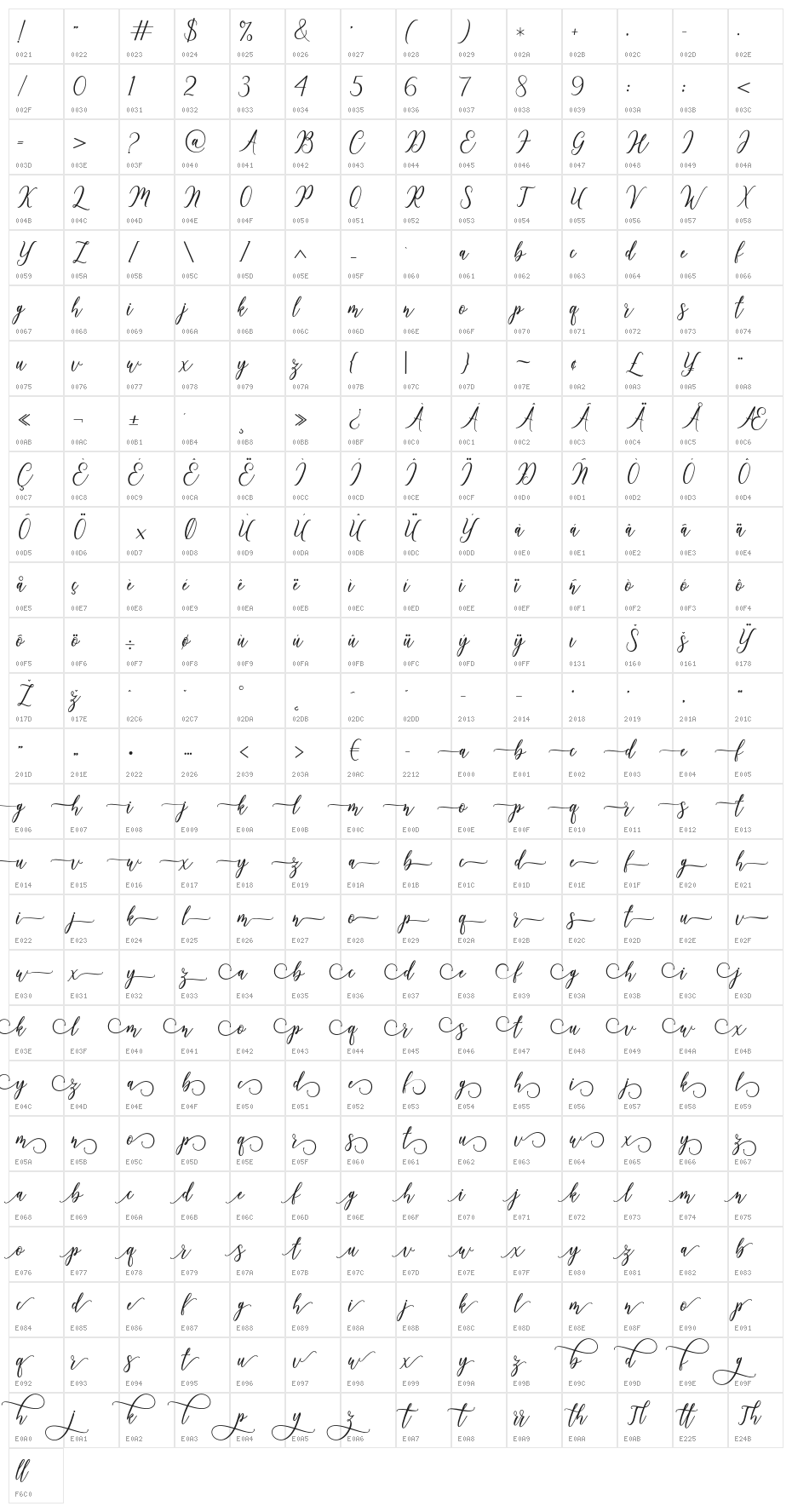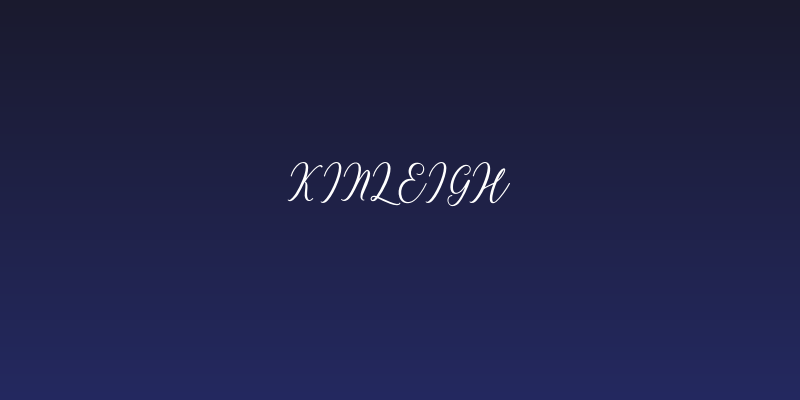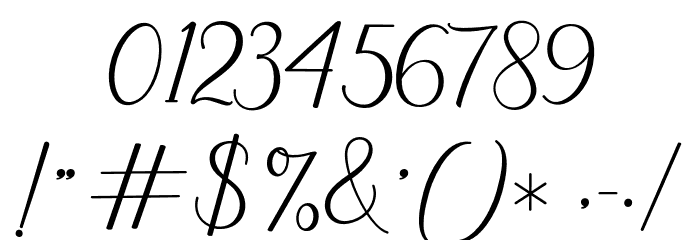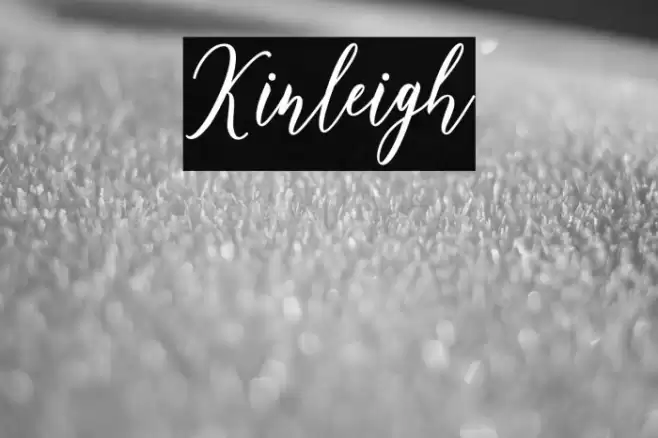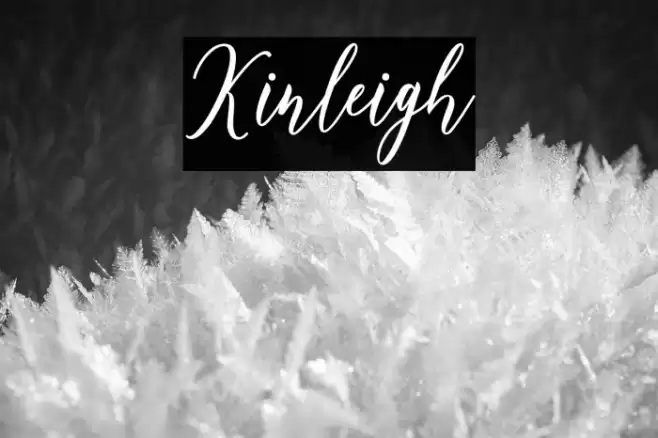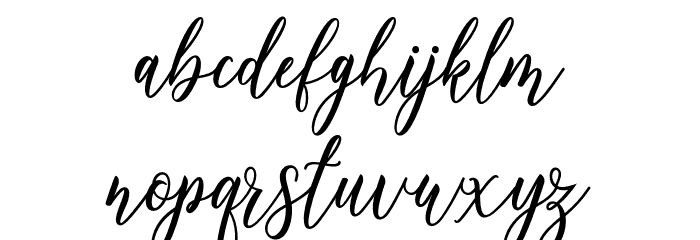
Kinleigh Font
Kinleigh Description
This elegant script font features a flowing, cursive style with smooth, connected strokes. The uppercase letters are tall and graceful, with a slight slant that adds a sense of movement and fluidity. The lowercase letters are equally stylish, maintaining a consistent flow that enhances readability while preserving an artistic flair. The numerals are designed with a similar elegance, ensuring they complement the overall aesthetic. Special characters are crafted with attention to detail, maintaining the font's cohesive look. This font exudes sophistication and charm, making it ideal for projects that require a touch of elegance.
| Overall Style | Elegant |
| Use Case | Logos, Invitations, Decorative text |
| Proposed Projects | Ideal for wedding invitations, elegant branding, greeting cards, and upscale packaging. |